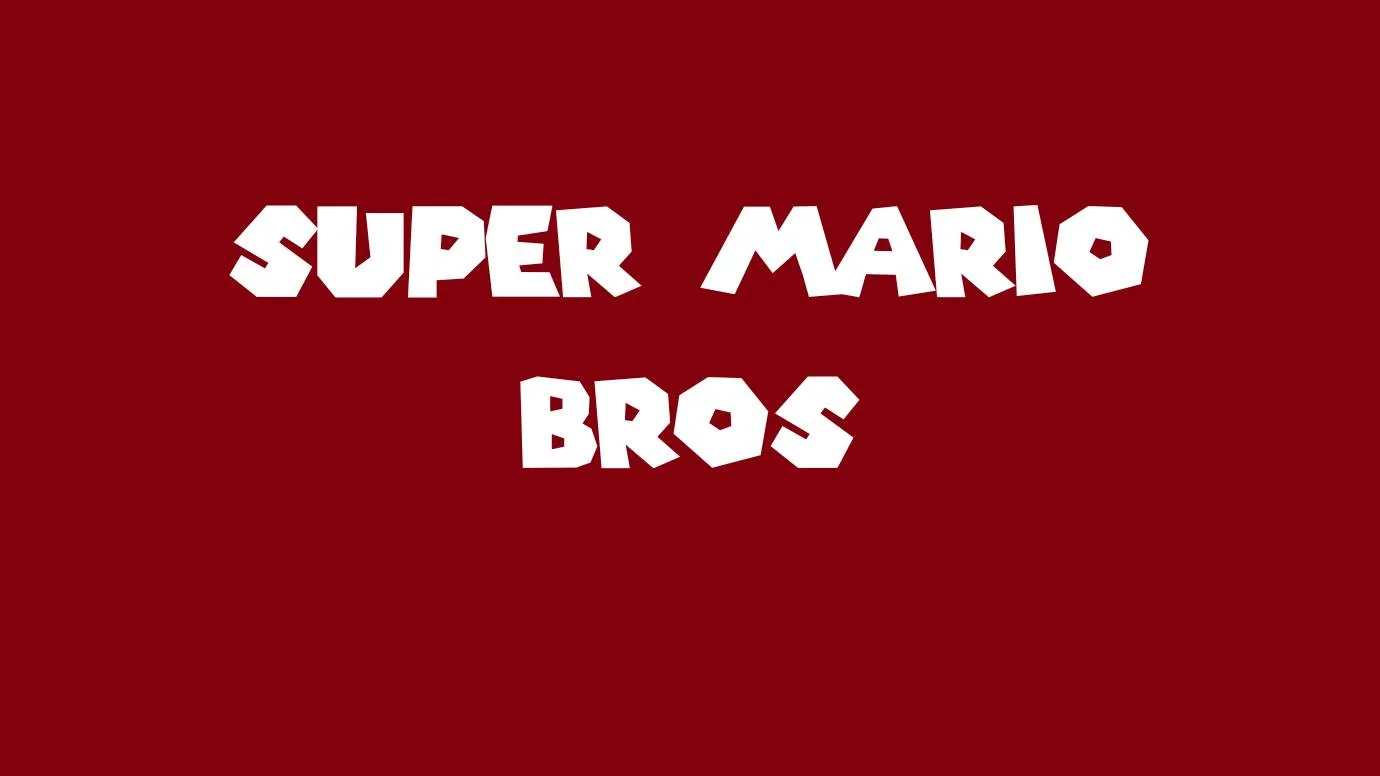
Super Mario Bros Font Family is known in the design industry for its classic features. Basically, this is a logo font that is used for the logo of a popular game Super Mario. This awesome typeface was mainly developed by Zen Kaipu.
| Name | Super Mario Bros Font |
| Type | Fancy |
| Designer | Zen Kaipu |